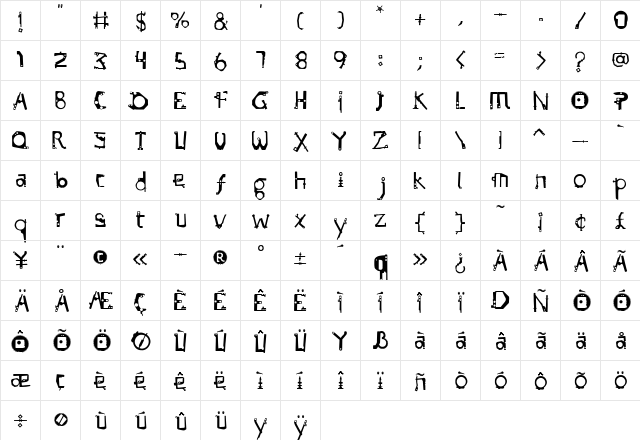
Subamera Regular
| Foundry | Subtitude Foundry |
| Designer | Sebastien Theraulaz, Valerie Desrochers |
Design Context for Subamera Typeface
Subamera is a composed and adaptable typeface that performs quietly and consistently across a wide range of design contexts.